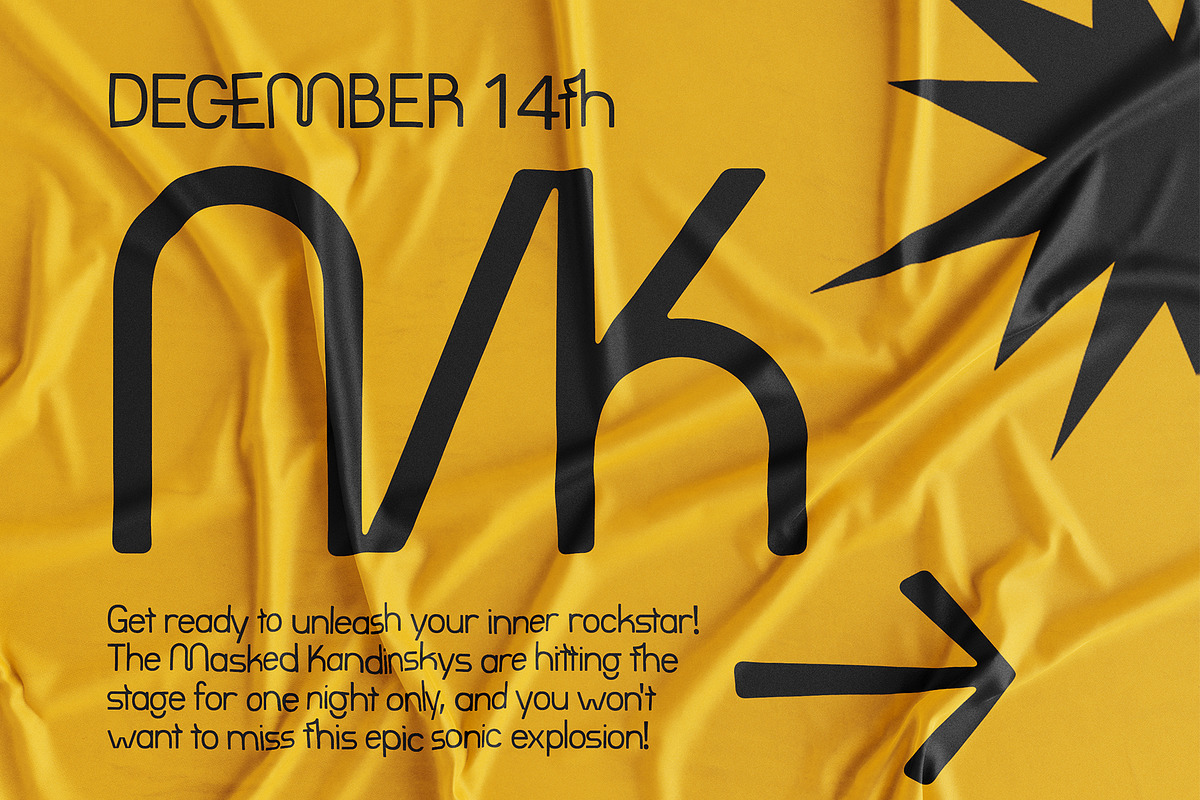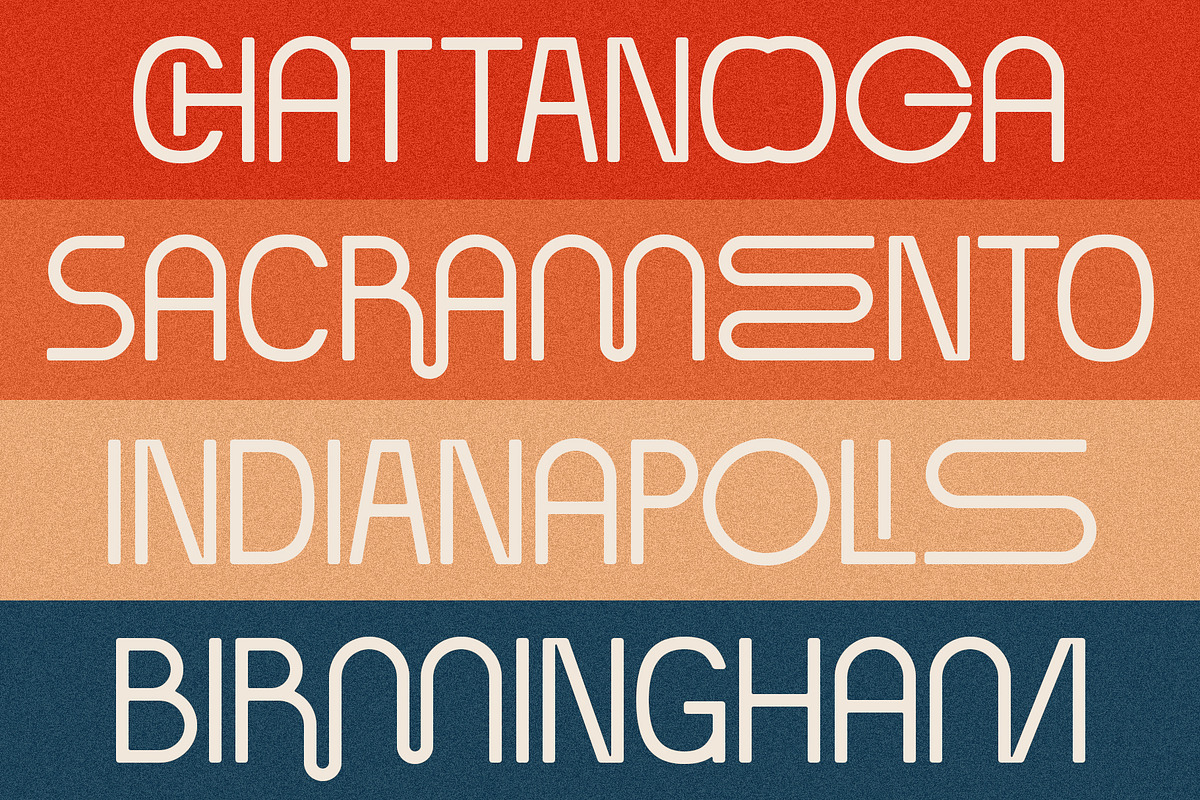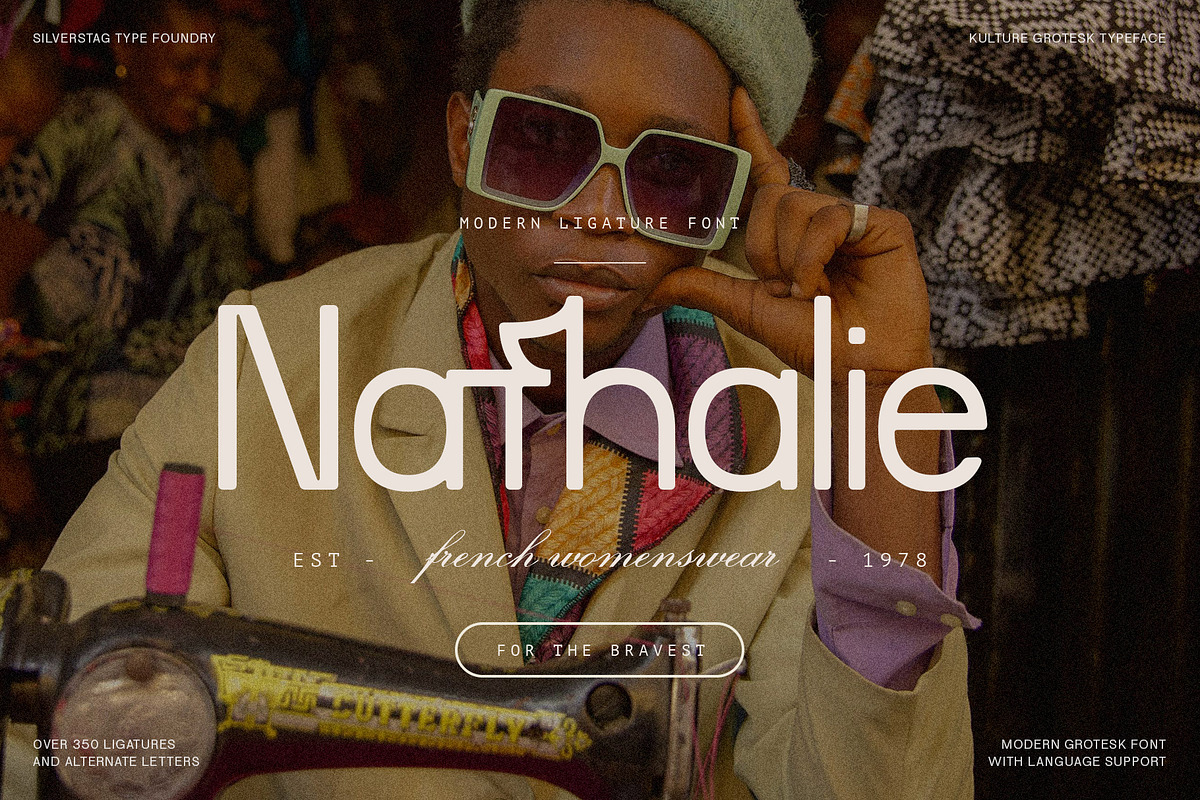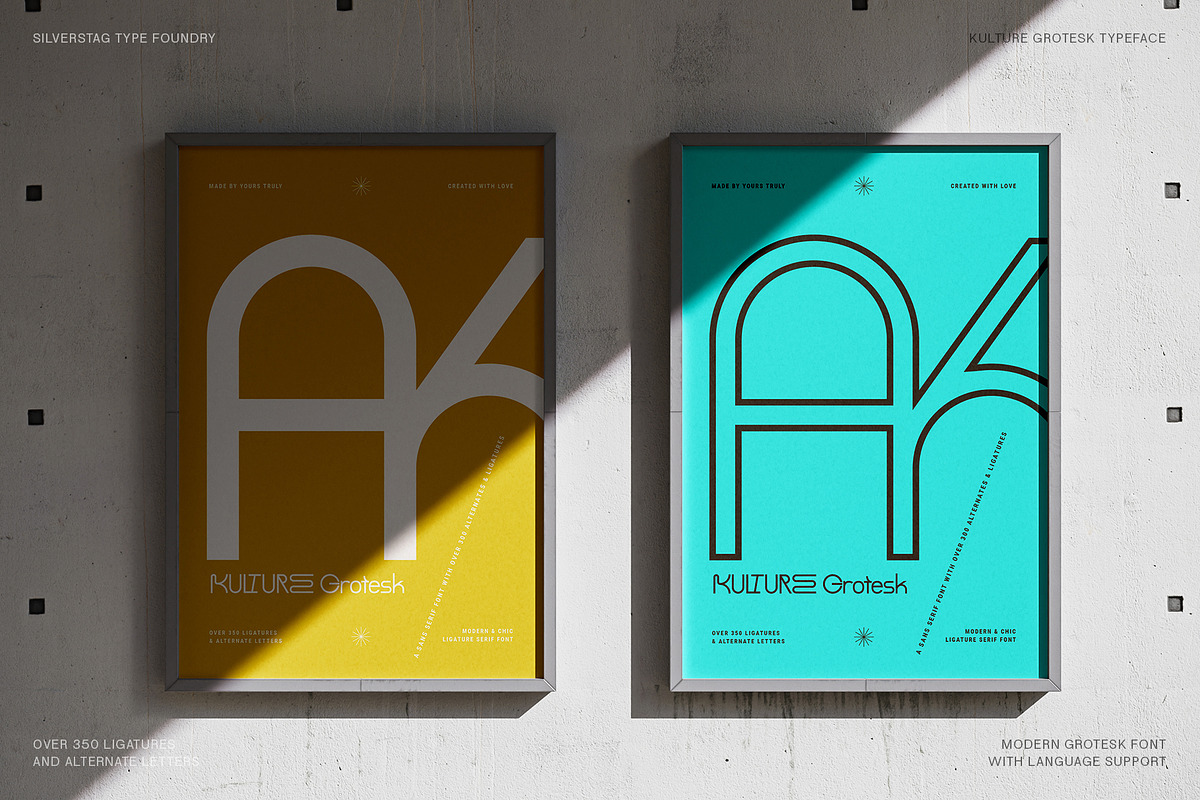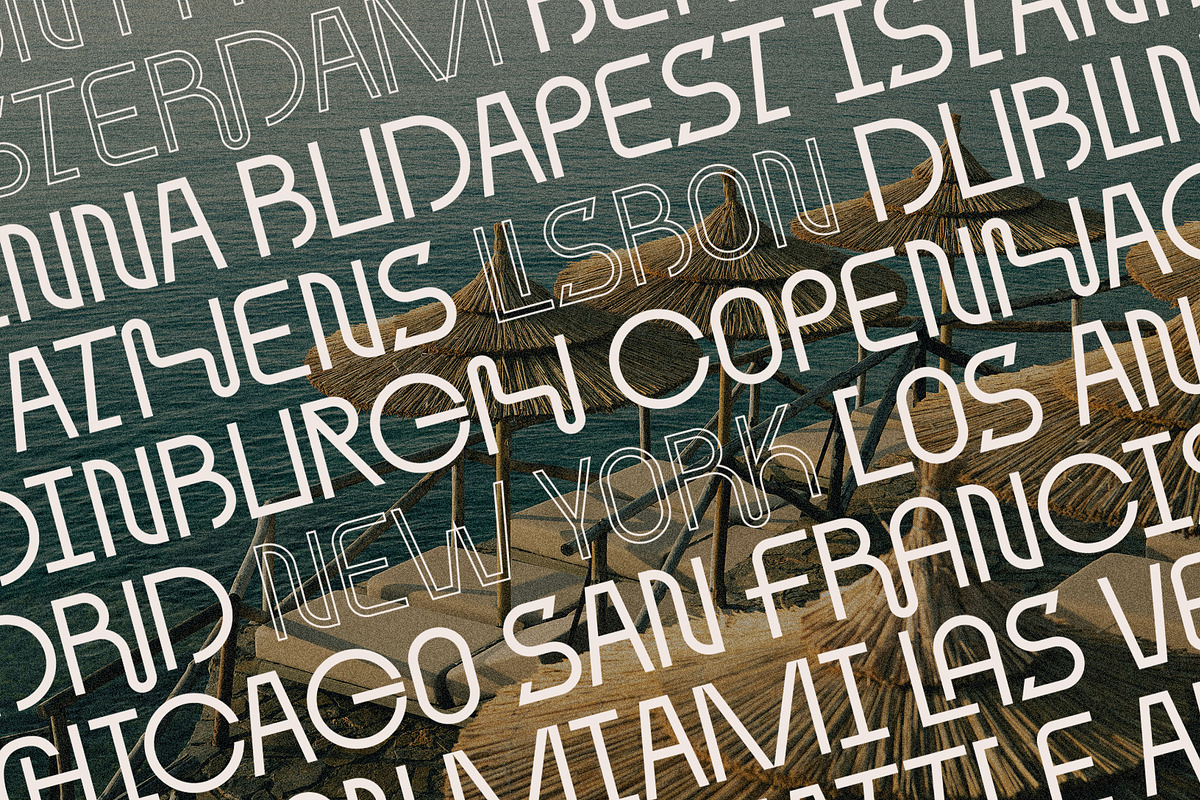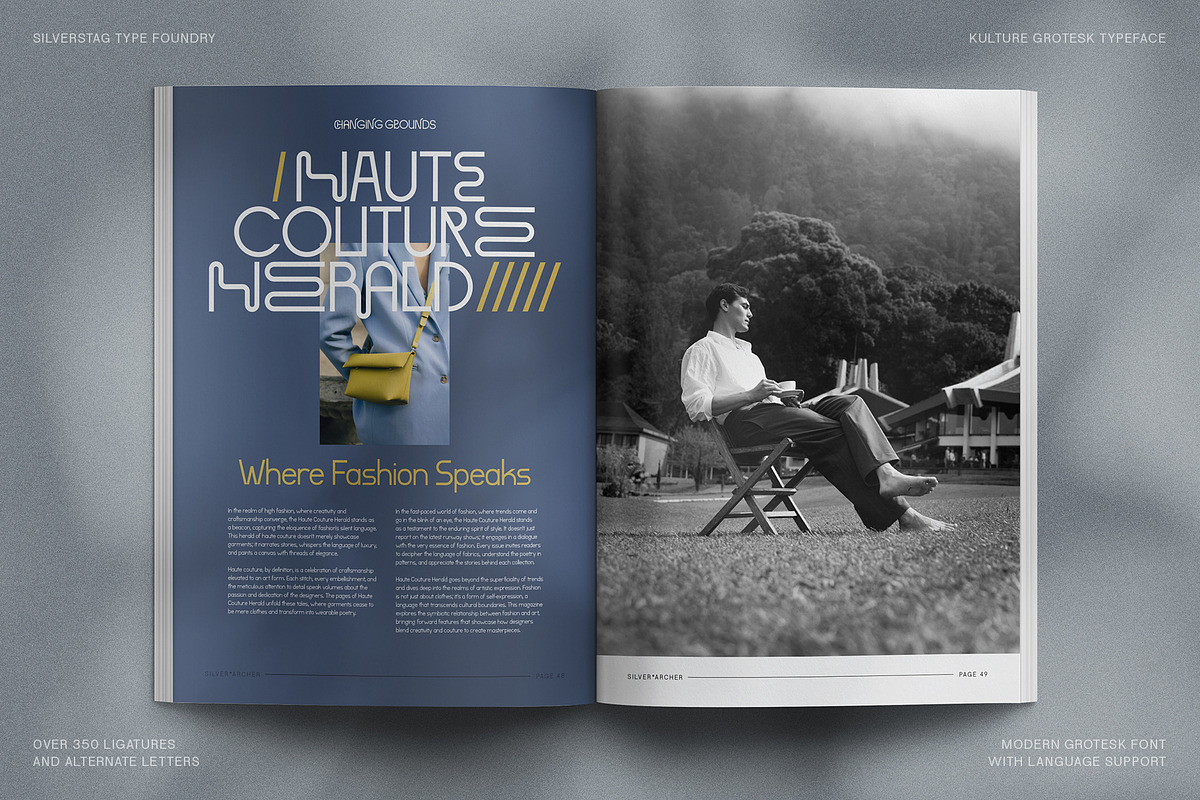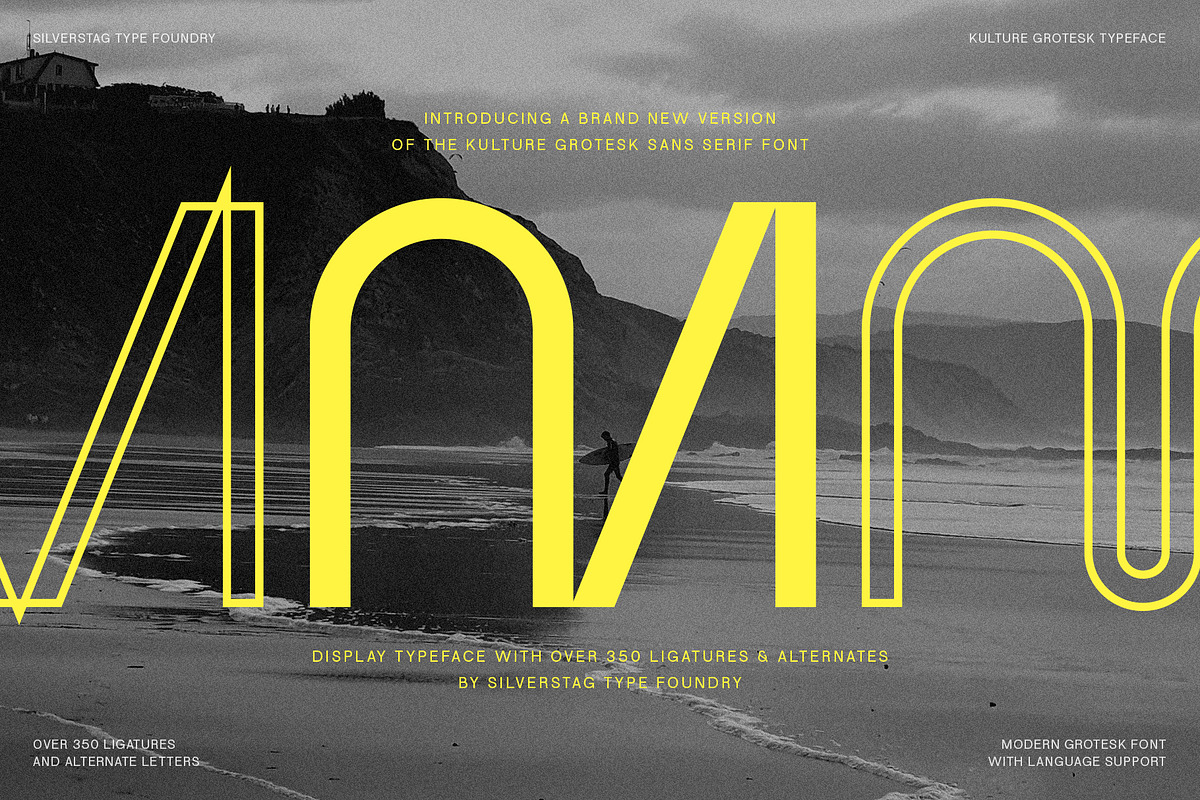
Kulture Grotesk v2 - Modern Typeface
Kulture Grotesk v2: Elevating Modern Design to New Heights
Embrace the evolution of Kulture Grotesk, a modern sans serif typeface family that redefines chic aesthetics and boundless creativity. This v2 release amplifies the original's captivating blend of simplicity and sophistication, offering an even more versatile and expressive typographic experience with four distinct styles:
Kulture Grotesk Regular: The foundation of the family, this clean and confident grotesk exudes modern elegance.
Kulture Grotesk Round: A softer, friendlier take on the original, with rounded terminals that add a playful touch.
Kulture Grotesk Outline: A bold and striking variation with open forms that create a dynamic contrast.
Kulture Grotesk Round Outline Combining the best of both worlds, this unique style merges rounded forms with the open outline structure.
With each style, you'll discover an impressive array of features that make Kulture Grotesk v2 the ultimate design companion:
Over 350 Ligatures & Alternates: Ignite your creativity with a vast collection of unique characters, perfect for crafting distinctive logos, captivating headlines, and personalized designs that truly stand out.
Expanded Language Support: Communicate seamlessly across cultures with over 90 supported languages, making Kulture Grotesk v2 a truly global typeface family.
Enhanced OpenType Features: Take control of your typography with an expanded suite of OpenType features, including stylistic sets, contextual alternates, and more, for effortless customization and fine-tuning.
Refined & Expanded Character Set: Enjoy improved clarity and legibility with refined glyphs and an expanded character set, ensuring your designs maintain a polished and professional look.
A Versatile Family for Every Project
Whether you're crafting a sleek corporate identity, designing eye-catching editorial layouts, or adding a touch of elegance to your personal projects, the Kulture Grotesk v2 family adapts effortlessly to any design challenge. Its diverse styles, clean lines, and contemporary aesthetic make it the perfect choice for a wide range of applications, including branding, advertising, web design, and more.
Embrace the Evolution of Kulture Grotesk
With its expanded features, enhanced functionality, and unwavering commitment to modern design, Kulture Grotesk v2 empowers you to break free from the ordinary and infuse your creations with a touch of individuality. Elevate your designs to new heights with this versatile and captivating typeface family.
Rediscover the possibilities of Kulture Grotesk. Your design journey awaits.